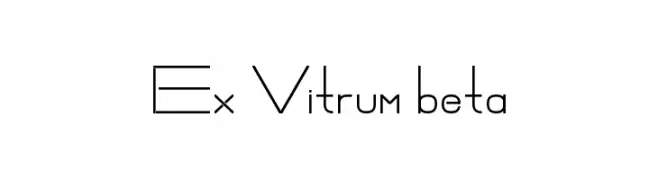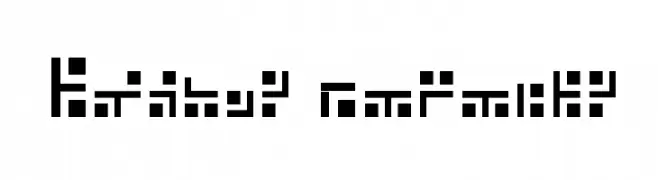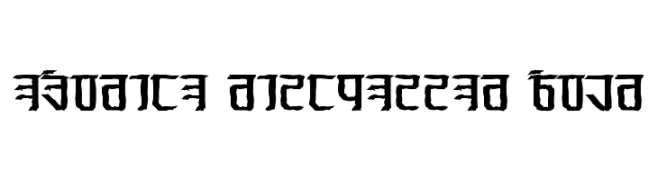
• Evogria
A bold, modern font with strong geometric shapes and uniform structure.
• Evogria
A bold, modern font with geometric shapes and strong visual impact.
• Ex Vitrum beta
( Bryan Augusto )
A modern, geometric font with clean lines and a futuristic aesthetic.
• Exabic Futurec
• Excellence Extended
• Excellence LightExtended
• Exodite
A futuristic, angular font with bold, geometric shapes.
• Exodite Distressed Bold
A bold, distressed gothic-style font with sharp, angular edges and a rugged texture.
• ExplodedCapital
A playful, fragmented font with bold outlines and dynamic character design.
• Explore
A bold, brush-style font with a dynamic, handcrafted appearance.